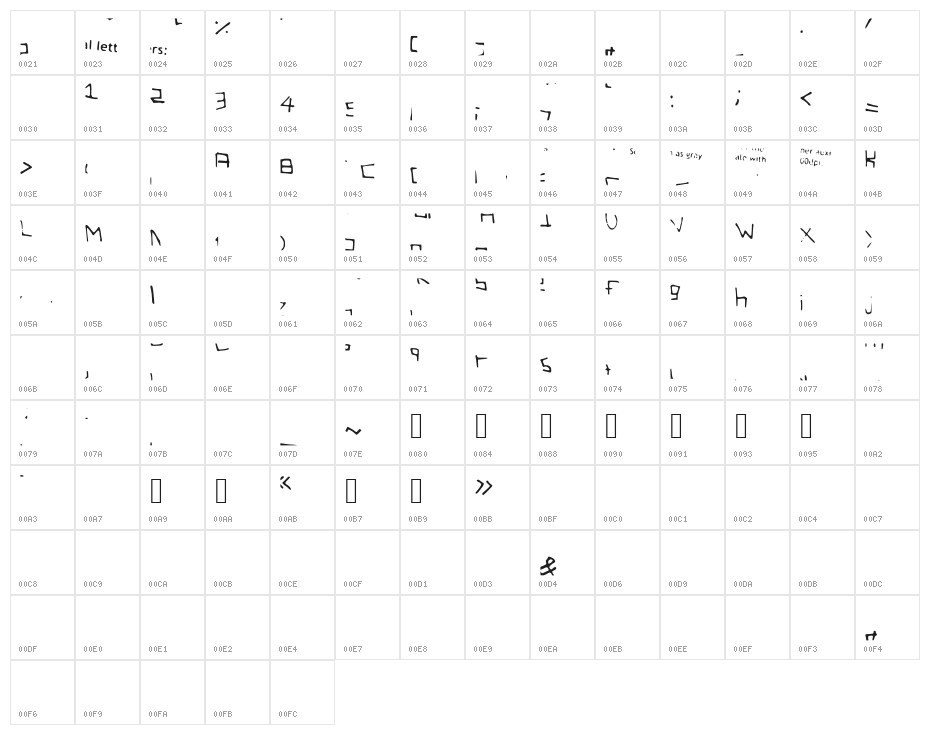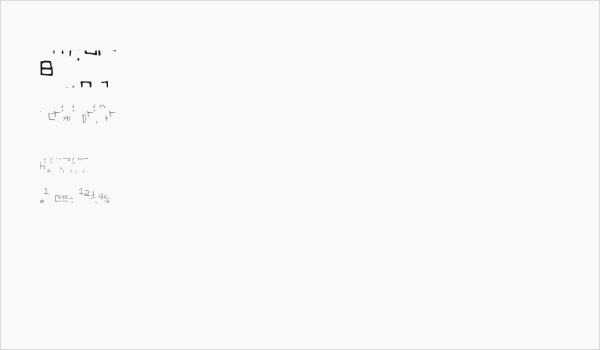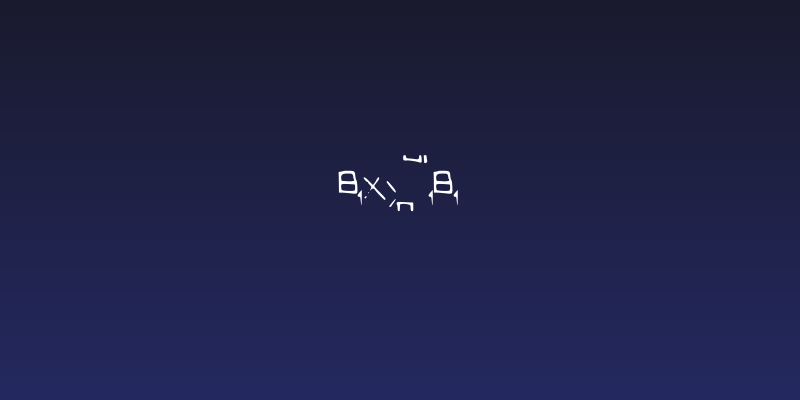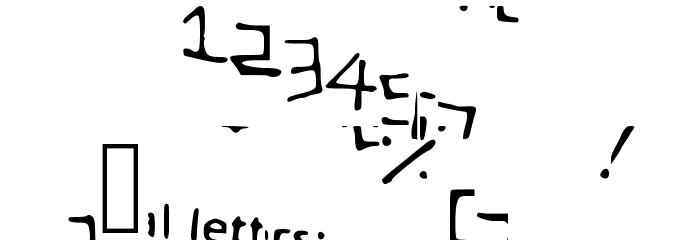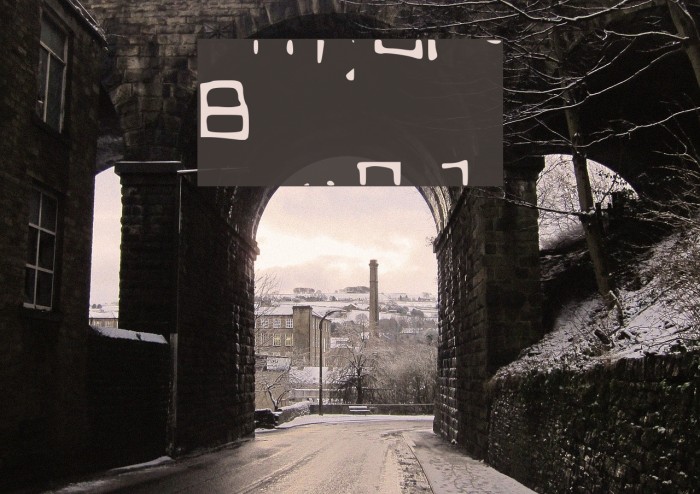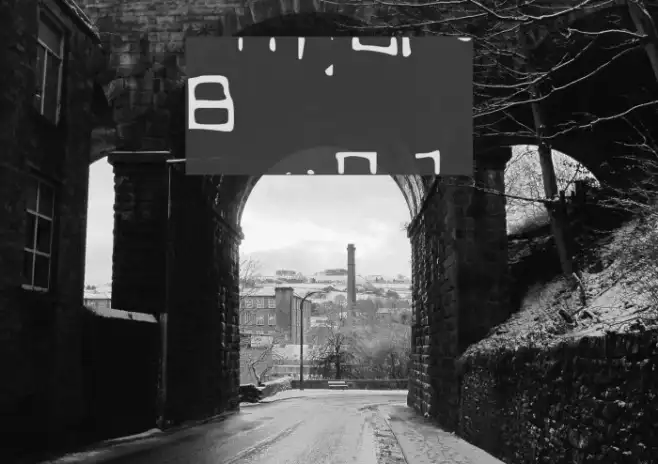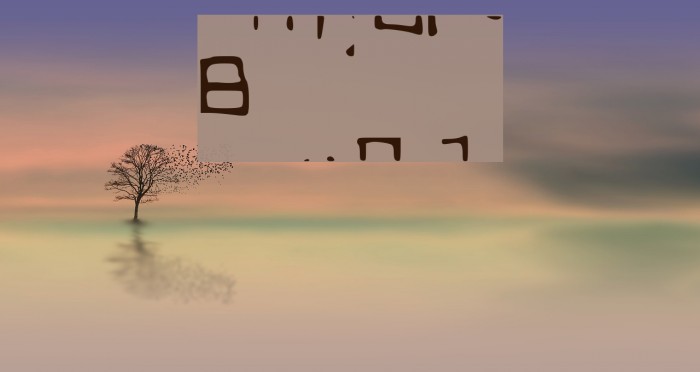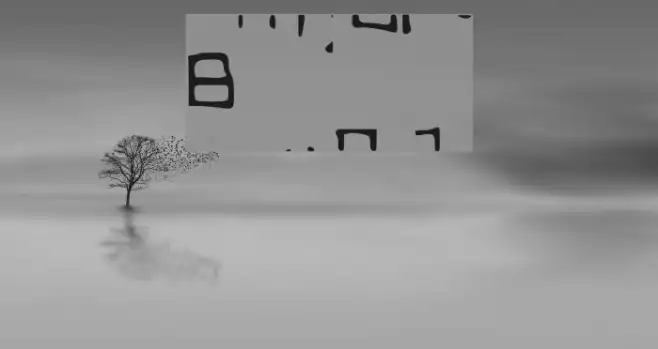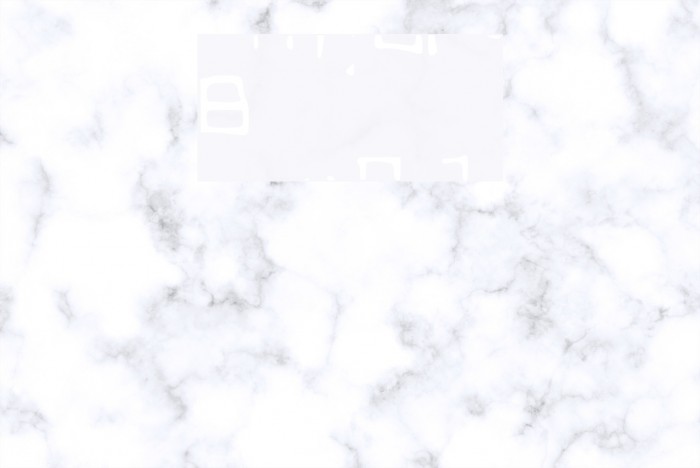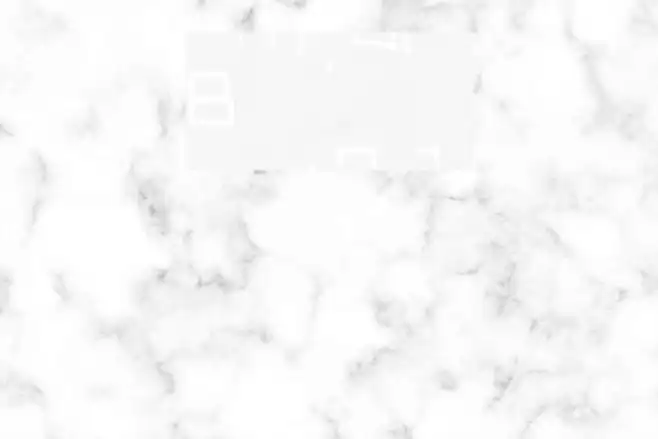
BoxyRobo Font
BoxyRobo Description
This font features a highly stylized, robotic aesthetic with angular and geometric shapes. Each character is constructed with a futuristic, mechanical feel, emphasizing sharp edges and a digital appearance. The uppercase letters are bold and prominent, while the lowercase letters maintain a consistent style with slightly reduced size. Numbers and special characters follow the same design principles, ensuring uniformity across the font. The overall look is reminiscent of digital interfaces or sci-fi themes, making it ideal for projects that require a modern and technological touch.
| Use Case | Logos, Headlines, Digital interfaces |
| Proposed Projects | Ideal for tech-themed projects, sci-fi book covers, video game interfaces, and digital art. |